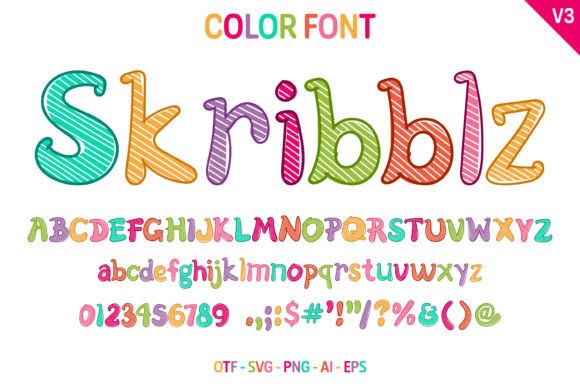
Unleash the Delight of Skribblz V3: A Font That Ignites Imagination
Step into a world of boundless creativity with Skribblz V3, a font family that bursts with vibrant colors and playful charm. This whimsical typeface, crafted by the imaginative minds at Imagination Switch, is a pure delight for both the eyes and the soul. Inspired by the free-spirited nature of childhood, Skribblz V3 captivates with its hand-drawn, scribbled design, making it a perfect companion for projects that aim to capture the essence of joy and playfulness.
Let Skribblz V3 take you on a visual adventure where each letter dances with a burst of color. Whether you're creating book covers, posters, invitations, or any design that calls for a touch of whimsy, this font family delivers undeniable charm and legibility. Dive into the realm of Skribblz V3 and let your creativity run wild, knowing that your designs will be both captivating and easy to read.
Imagine a font that sparks curiosity and draws eyes like a magnet. Skribblz V3 is that font. Its vibrant colors and playful scribbles instantly grab attention, making it the perfect choice for designs that demand impact. Whether you're creating marketing materials, social media graphics, or eye-catching headlines, Skribblz V3 ensures your message will be heard loud and clear.